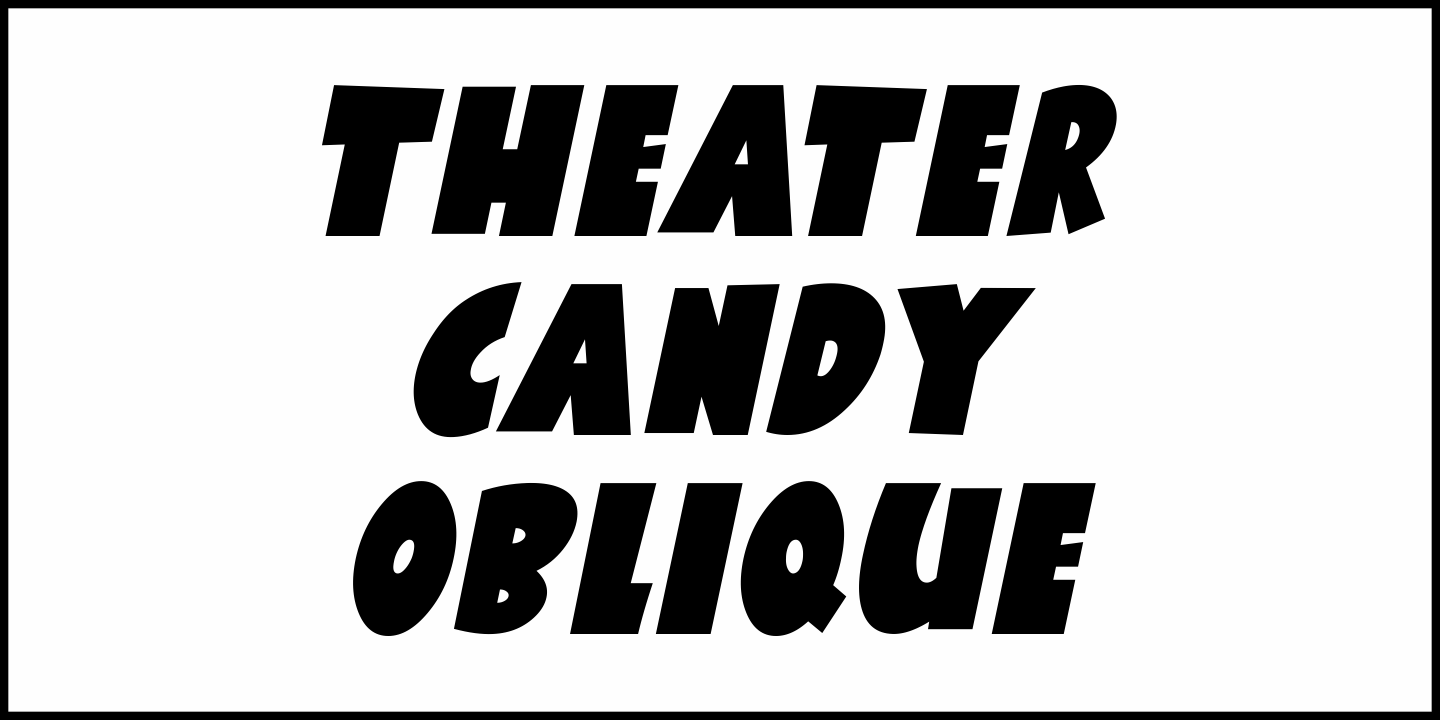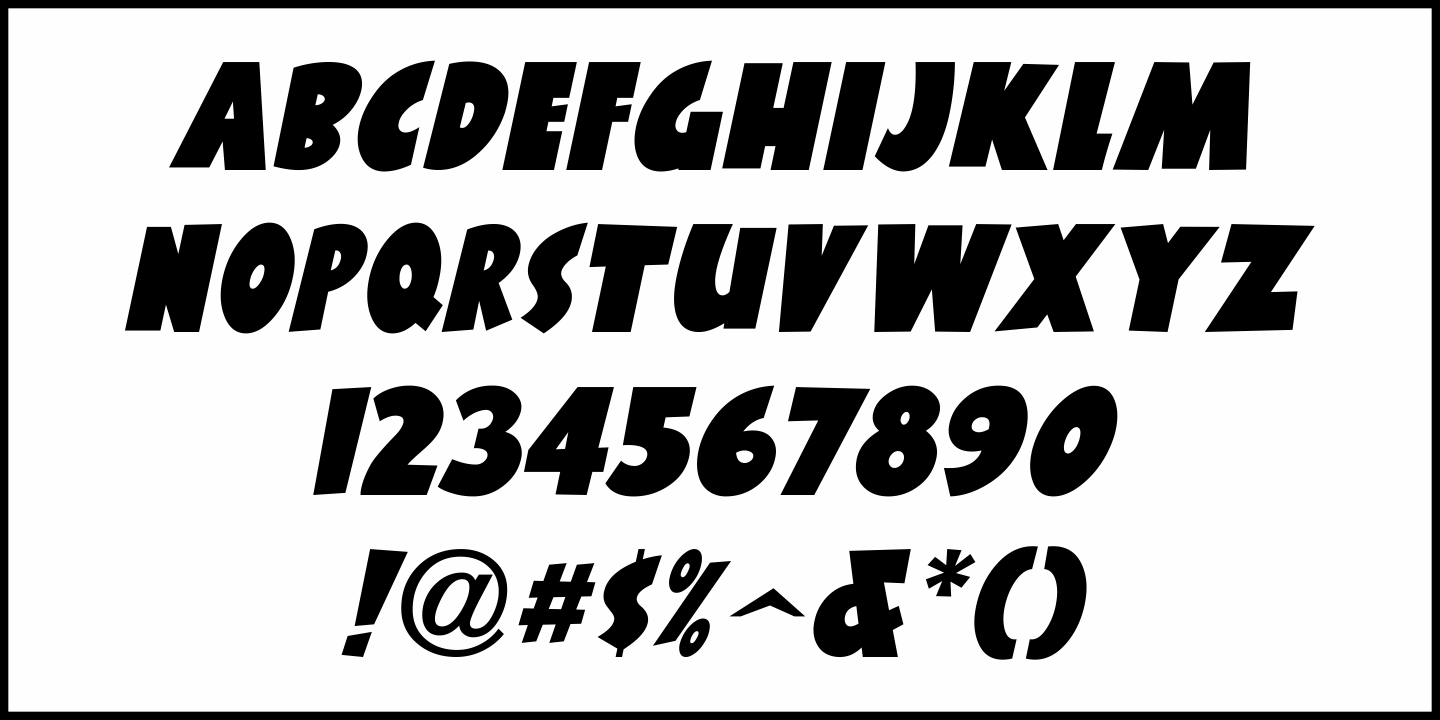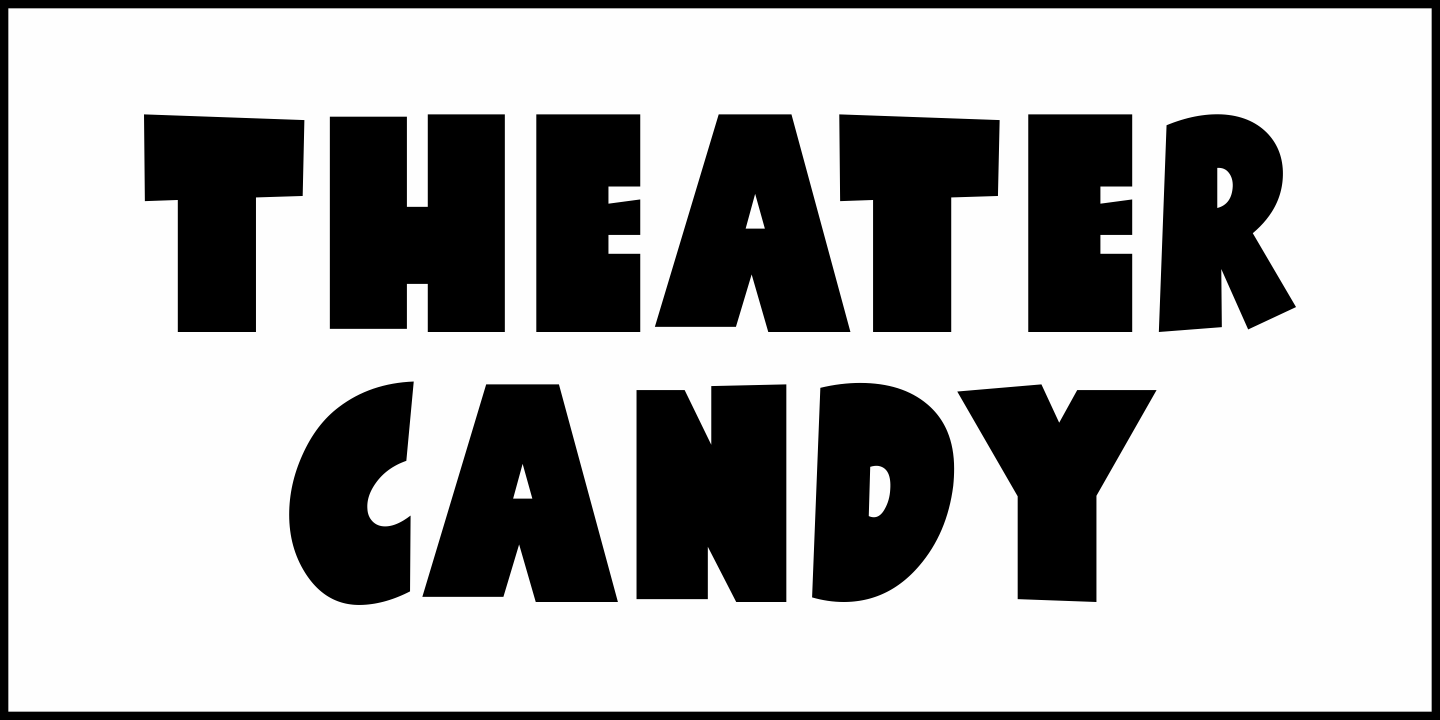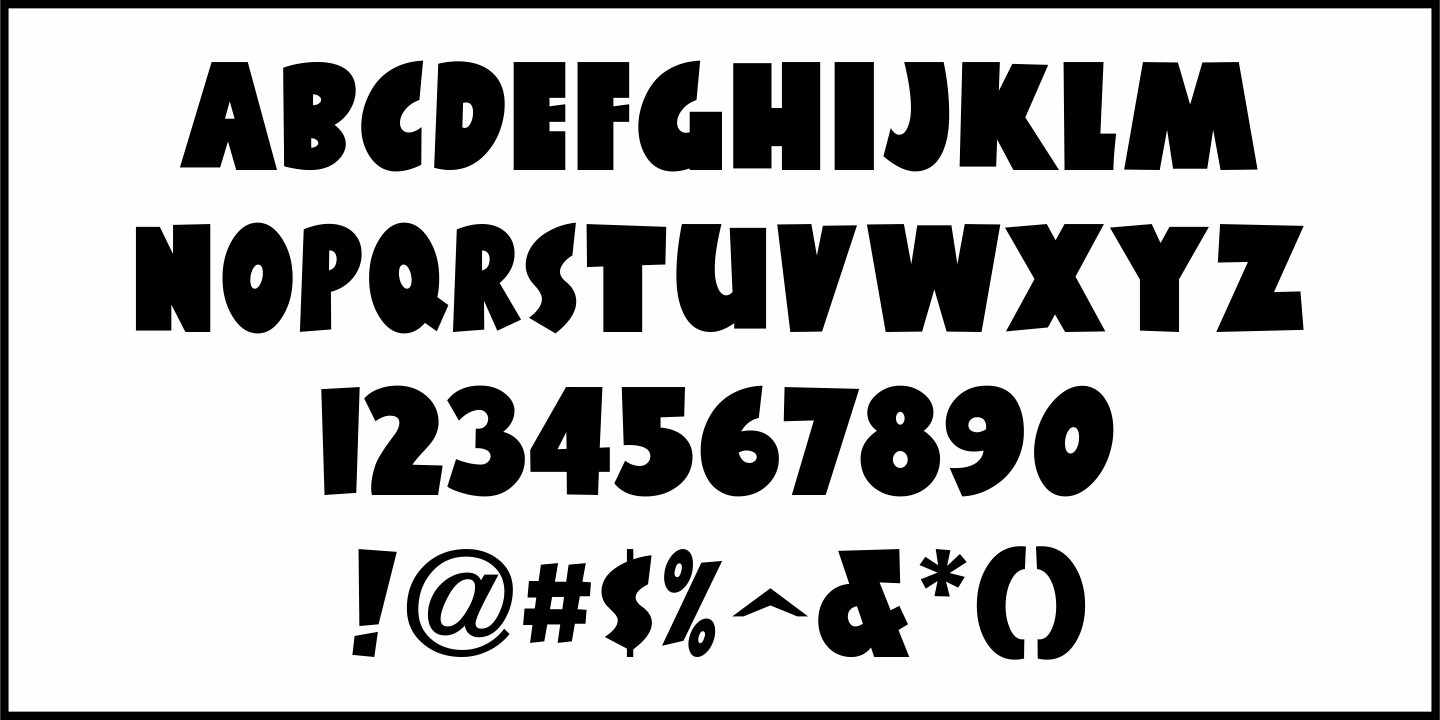
Theater Candy
The January 17, 1940 issue of the motion picture trade paper "The Exhibitor" carried an ad for "The Hunchback of Notre Dame".
What made the ad unusual was the choice of some hand lettering - not serious or suspenseful, but rather big, bold, casual and somewhat playful.
With this in mind, the digital version of this type design is called Theater Candy JNL, and is available in both regular and oblique versions.
Theater Candy Oblique by Jeff Levine Fonts